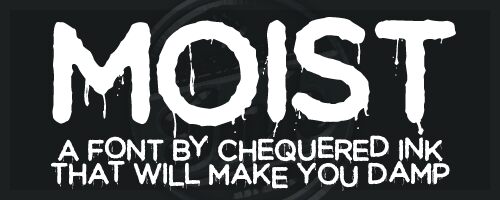
Moist
Moist, a captivating display font crafted by the talented team at Chequered Ink, exudes an undeniable sense of unease and intrigue. This bold, dripping typeface commands attention, its grungy, ominous forms evoking a palpable atmosphere of dread and mystery. The irregular, almost visceral strokes and unsettling negative space create a visual experience that is both striking and unsettling, seamlessly blending the realms of the macabre and the mesmerizing.
Moist's versatility shines through its ability to seamlessly integrate into a wide range of design contexts, from horror-themed branding and packaging to avant-garde editorial layouts. Its unique character lends itself exceptionally well to creating impactful headlines, attention-grabbing logos, and immersive typographic narratives. Whether used to evoke a sense of the supernatural or to infuse a project with an undeniably dark and captivating aesthetic, Moist is a font that demands to be noticed.